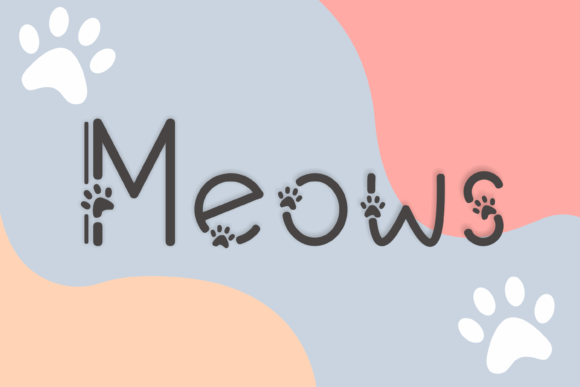
Immerse yourself in the enchanting world of Meows Font, a decorative font that transports you to a realm of wonder and playfulness. Created by the talented nuraisyahamalia1729, Meows Font features paw-themed characters that dance across your screen, evoking a sense of joy and lightheartedness.
With Meows Font, your projects will blossom into captivating creations. From enchanting letterheads and titles to eye-catching stationery, this font adds a touch of whimsy and charm to any endeavor. Its elegant strokes and playful characters make it the perfect choice for those seeking a font that sparks imagination and leaves a lasting impression.
Whether you're a seasoned designer or just starting your creative journey, Meows Font is the perfect companion for your artistic explorations. Its versatility knows no bounds, making it ideal for a variety of projects, from personal invitations and greeting cards to eye-catching logos and branding materials.
Step into the world of Meows Font and let your creativity soar. Its charming design and playful spirit will transform your projects into masterpieces, leaving a paw print on the hearts of your audience. Download Meows Font today and embark on a journey of artistic enchantment.